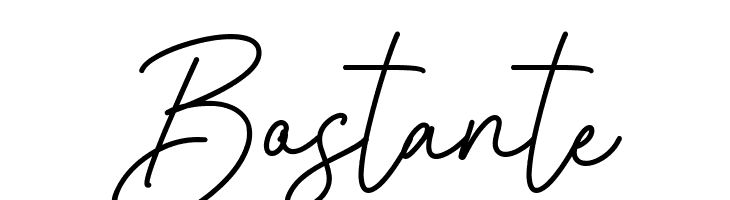
A modern, handwritten font with fluid, elongated characters.
A sophisticated and flowing script font with elegant flourishes.
An elegant, cursive font with flowing curves and ornate flourishes.
A dynamic handwritten font with fluid strokes and a casual style.